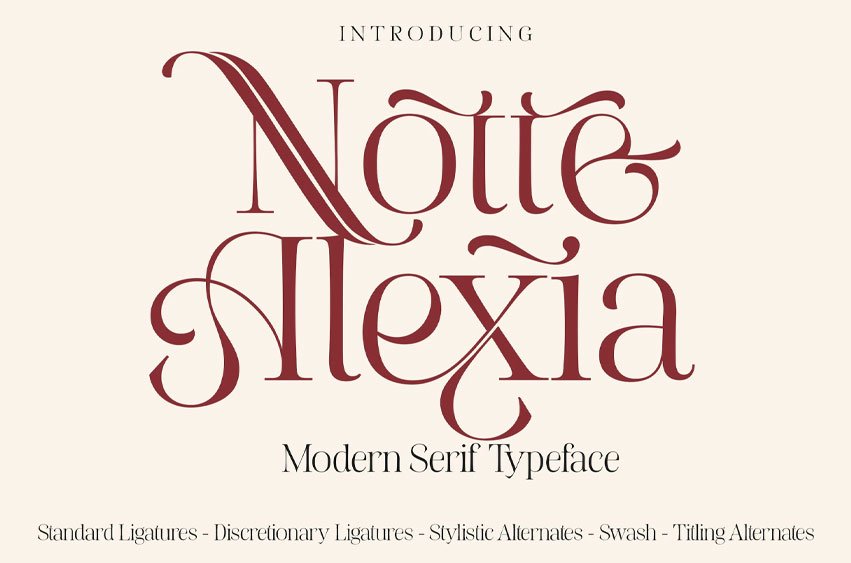
Notte Alexia Font is a stunning example of a Modern Serif Typeface that perfectly balances classical elegance with contemporary flair. It is designed to make a statement, offering a sophisticated aesthetic that feels both high-end and artistic.
Design Characteristics. Elegant & Fluid: The typeface features high-contrast strokes and graceful, flowing curves that give it a rhythmic, calligraphic quality.
Opulent Details: As shown in the “New COVER” image, it is packed with decorative flourishes, including elongated swashes and intricate ligatures that create a custom, hand-lettered look. While it draws inspiration from classic serif structures, its clean lines and unique letterforms make it feel fresh and “editorial.”
The font includes a rich variety of OpenType features that allow for deep customization:
Standard & Discretionary Ligatures: Seamlessly connects letters for a more natural, fluid feel.
Stylistic Alternates & Swashes: Offers decorative versions of letters to add drama and personality to your titles.
Titling Alternates: Specifically optimized for large-scale headers and hero text.
Notte Alexia is a “display” font, meaning it shines brightest when used for: Branding & Logos: Perfect for luxury brands, fashion labels, and jewelry boutiques. Ideal for magazine covers, wedding invitations, and high-end stationery. Adds a touch of exclusivity to cosmetics, perfumes, or wine labels.Great for creating eye-catching quotes or sophisticated aesthetic posts.
If you are looking for a typeface that communicates luxury, romance, and artistic confidence, Notte Alexia is an exceptional choice.